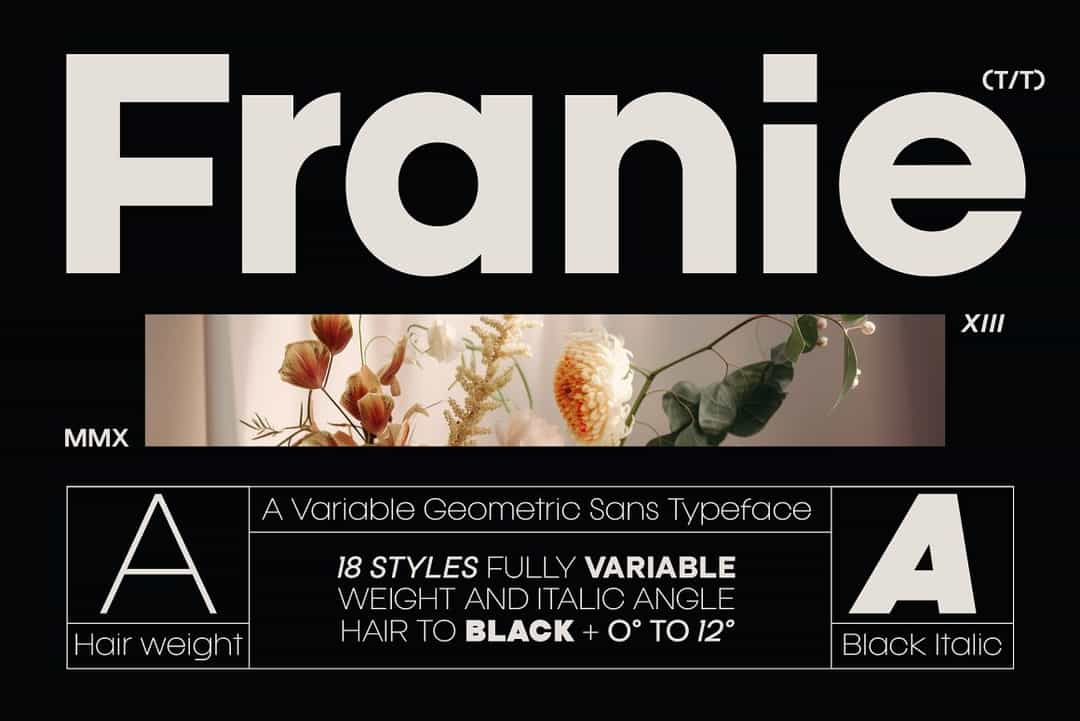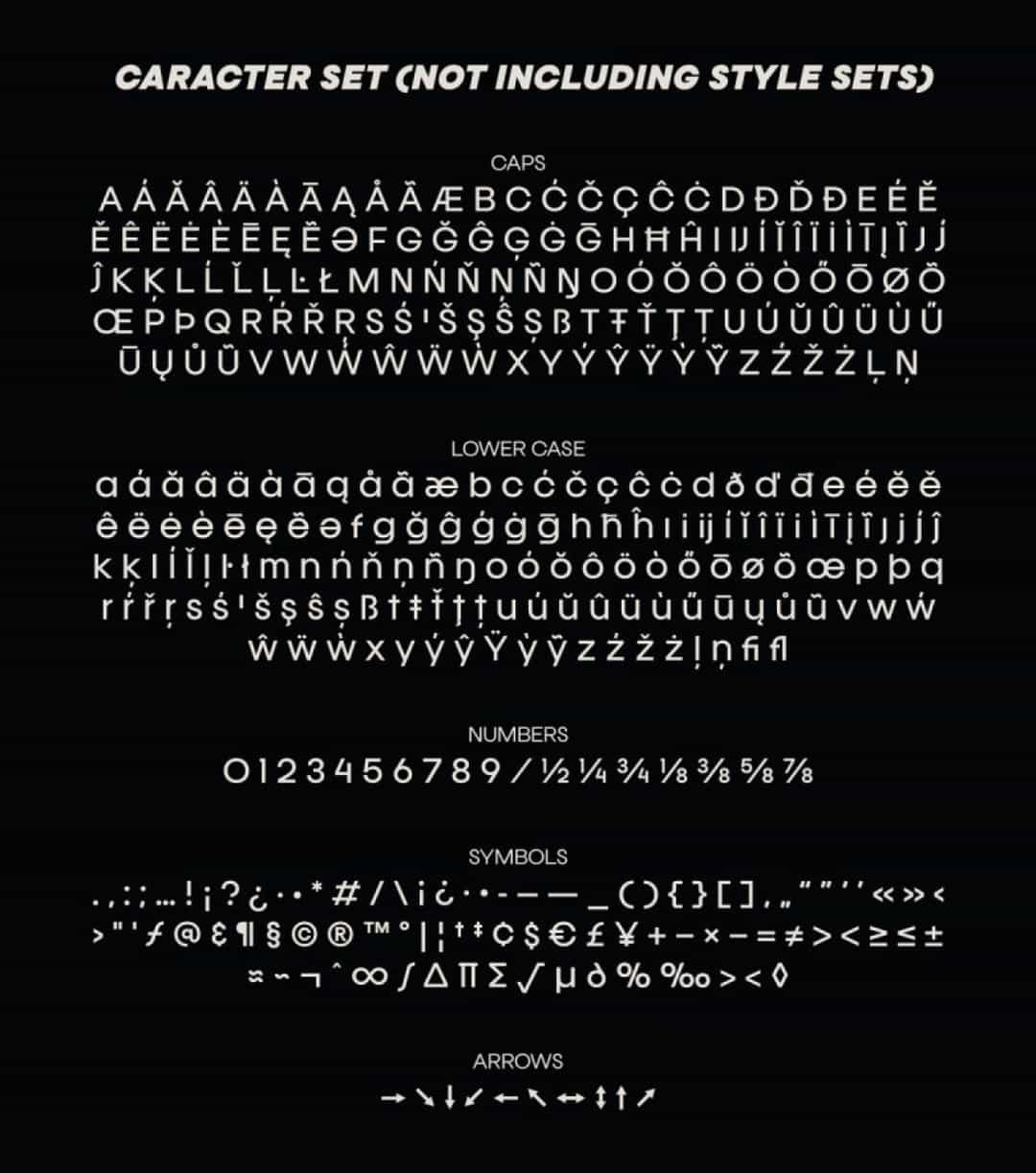
Franie was designed as an accessible geometric sans font family, offering both serious and playful elements such as its lowercase “I” within heavy weight wights or its straight-angled curvature running along the upper case “g”. However, Fanie stands out as being something special from this genre of fonts – unlike typical Geometric Sans font families!